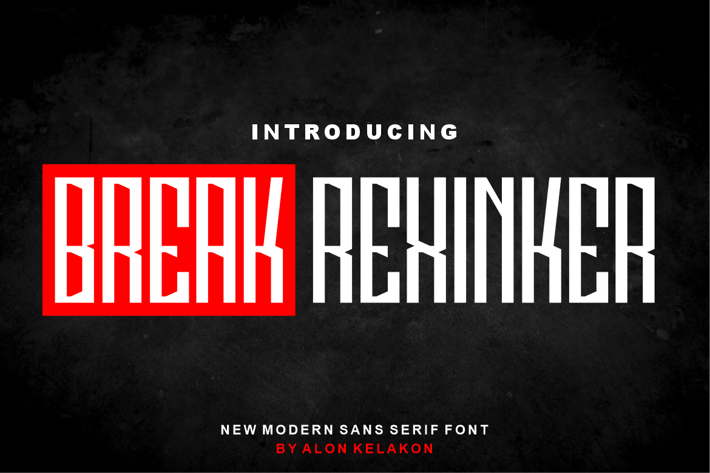
Break Rexinker Font
Break Rexinker Font is unique . Ready to use for your design like labeling, clothing, movie sceen, poster, movie title, gigs, album covers, logos, and much more.